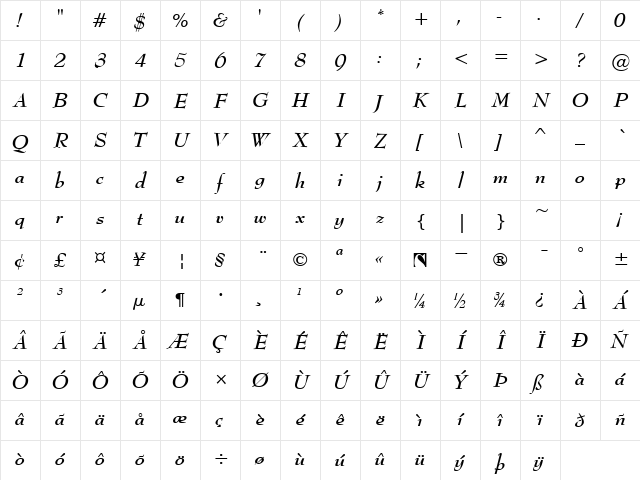
Bernard fed kursiv
Style: fed kursiv
Design Context for Bernard
Bernard is a composed and adaptable typeface that performs quietly and consistently across a wide range of design contexts. The slanted form adds forward momentum and visual energy.